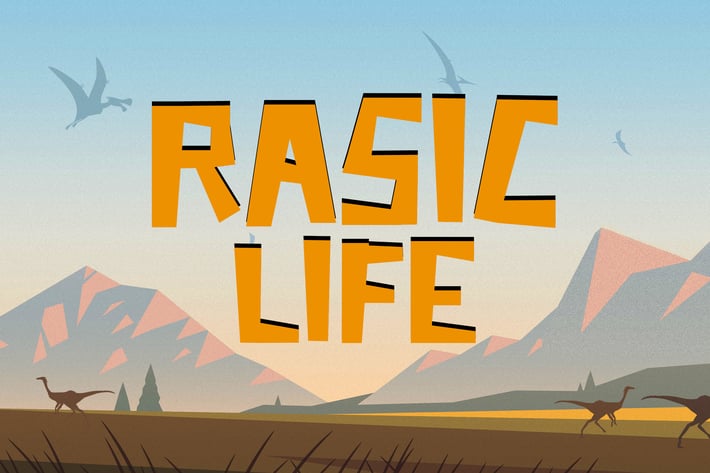
Rasic Life - Kids Font
Taking the ideas from the world of dinosaurs, Rasic Life is the go-to font for any museums, historical poster,s and games.
Suit perfectly for children's books market, online games, stationery, school supplies font, poster, movie title, youtube covers, youtube thumbnails, social media page covers, and so on...